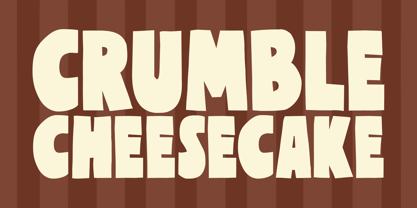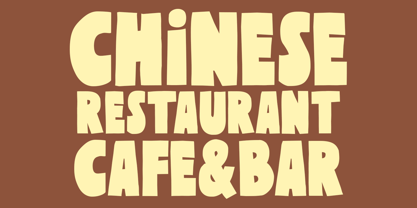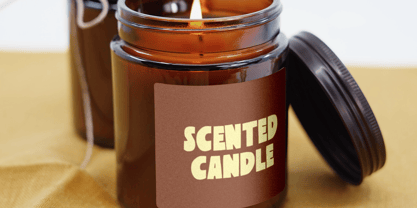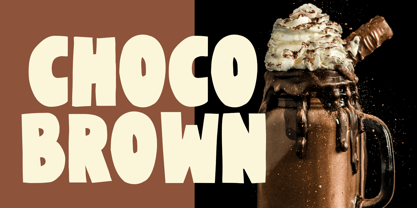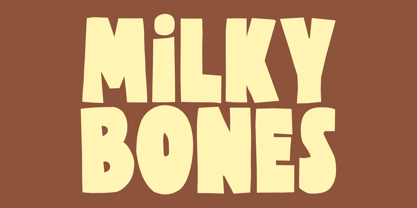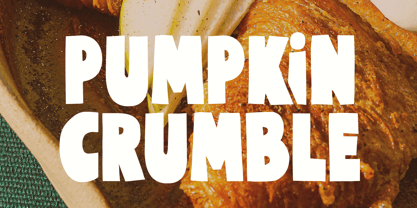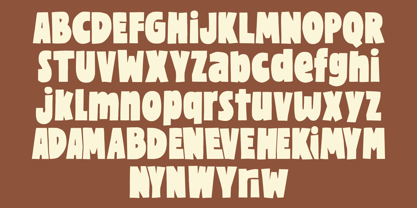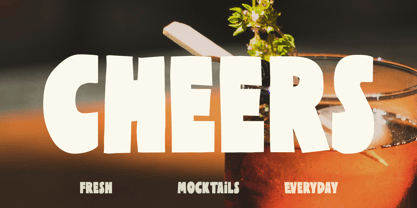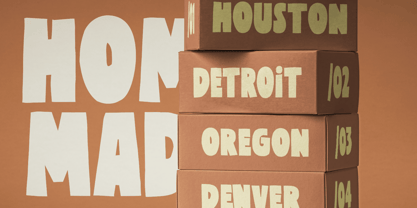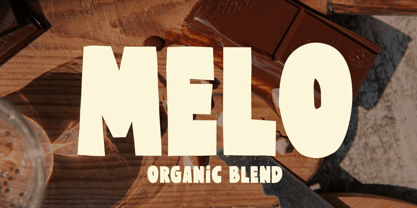
Crumble Cheesecake
The Crumble Cheesecake Font Family was designed by Najril Ilham Amrullah and published by Viswell. Crumble Cheesecake contains 1 styles.
Crumble Cheesecake is a deliciously bold handwritten font that embodies the soft and sweet essence of its name, infusing a playful handmade charm into any design. Featuring chunky shapes, cozy curves, and a creamy texture, this font is ideal for food packaging, logos, posters, and children's projects that require a friendly, joyful touch. Its combination of warmth and legibility makes it perfect for headlines and branding, evoking a fun, nostalgic feel full of character. Add a spoonful of happiness to your designs with Crumble Cheesecake — the perfect recipe for eye-catching creativity!